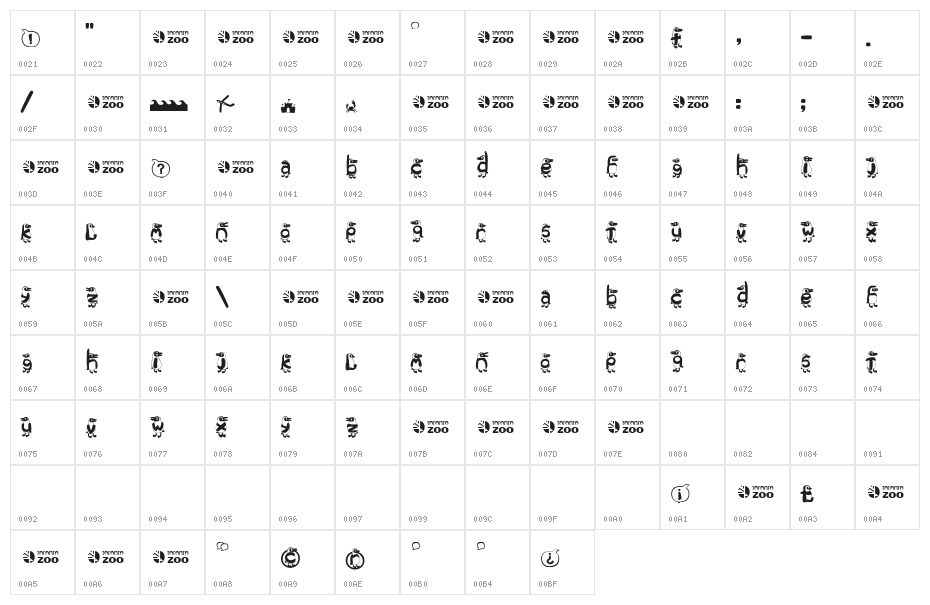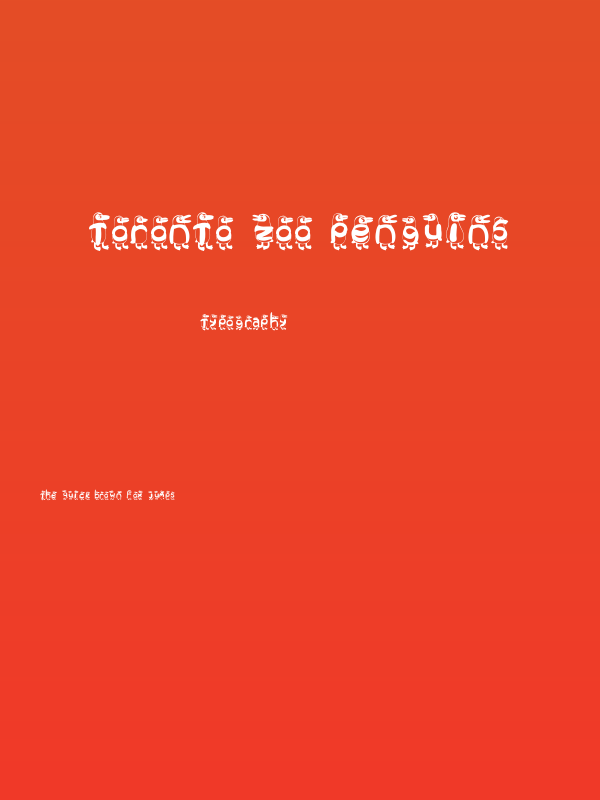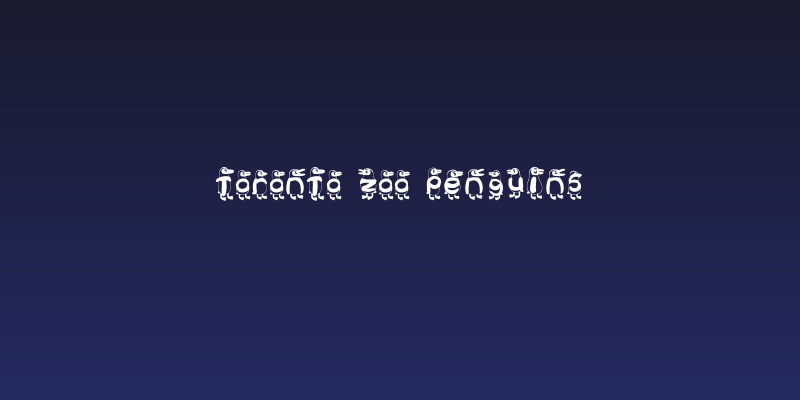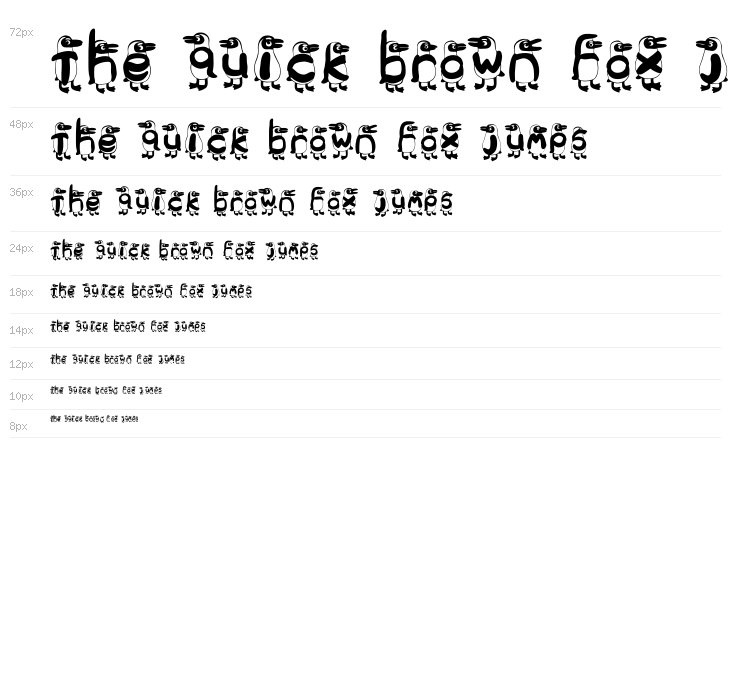
Toronto Zoo Penguins Font
Toronto Zoo Penguins Description
This playful and whimsical font features characters designed as penguins, each letter incorporating elements of a penguin's body, such as wings and feet. The font is highly decorative and unique, with each character maintaining a consistent theme that adds a sense of fun and creativity. The letters are bold and have a cartoonish style, making them stand out in any design. The font includes both uppercase and lowercase letters, numbers, and a selection of special characters. Its distinctive appearance makes it ideal for projects that require a touch of humor and originality.
| Use Case | Logos, Posters, Children's Books |
| Proposed Projects | Ideal for children's books, zoo-themed events, playful branding, and educational materials. |